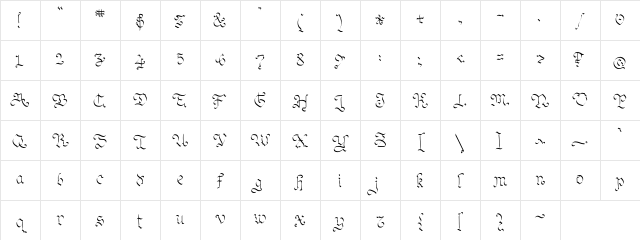
Complete OhMyGoth Medium glyph index. Displaying only characters natively supported by OhMyGoth Medium font.
OhMyGoth is a composed and adaptable typeface that performs quietly and consistently across a wide range of design contexts.